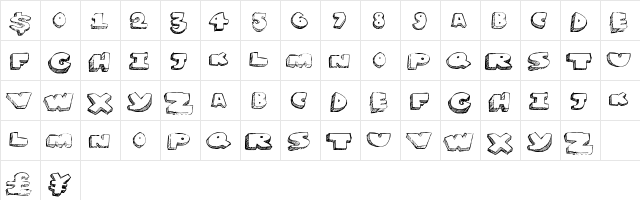
GrapeSoda Regular
Design Context for GrapeSoda Typeface
GrapeSoda is a composed and adaptable typeface that performs quietly and consistently across a wide range of design contexts.